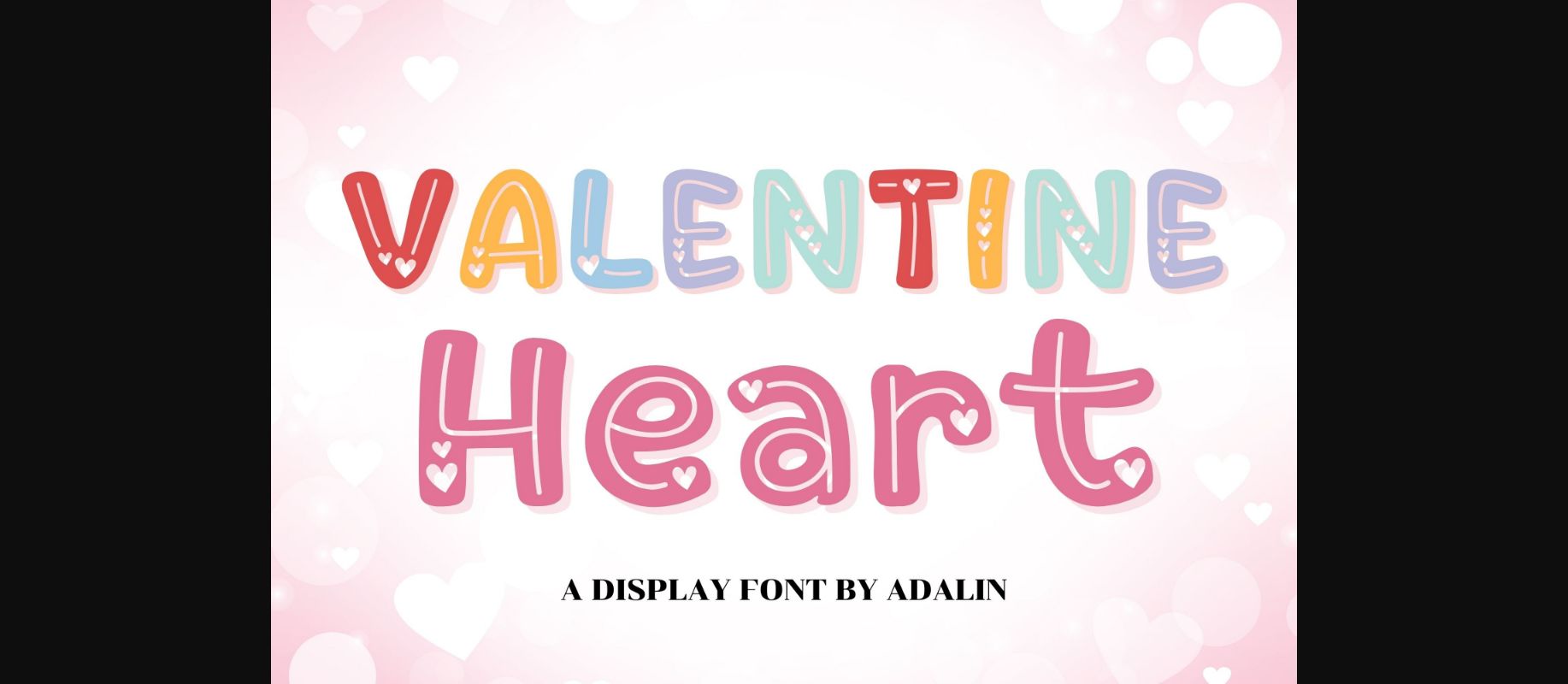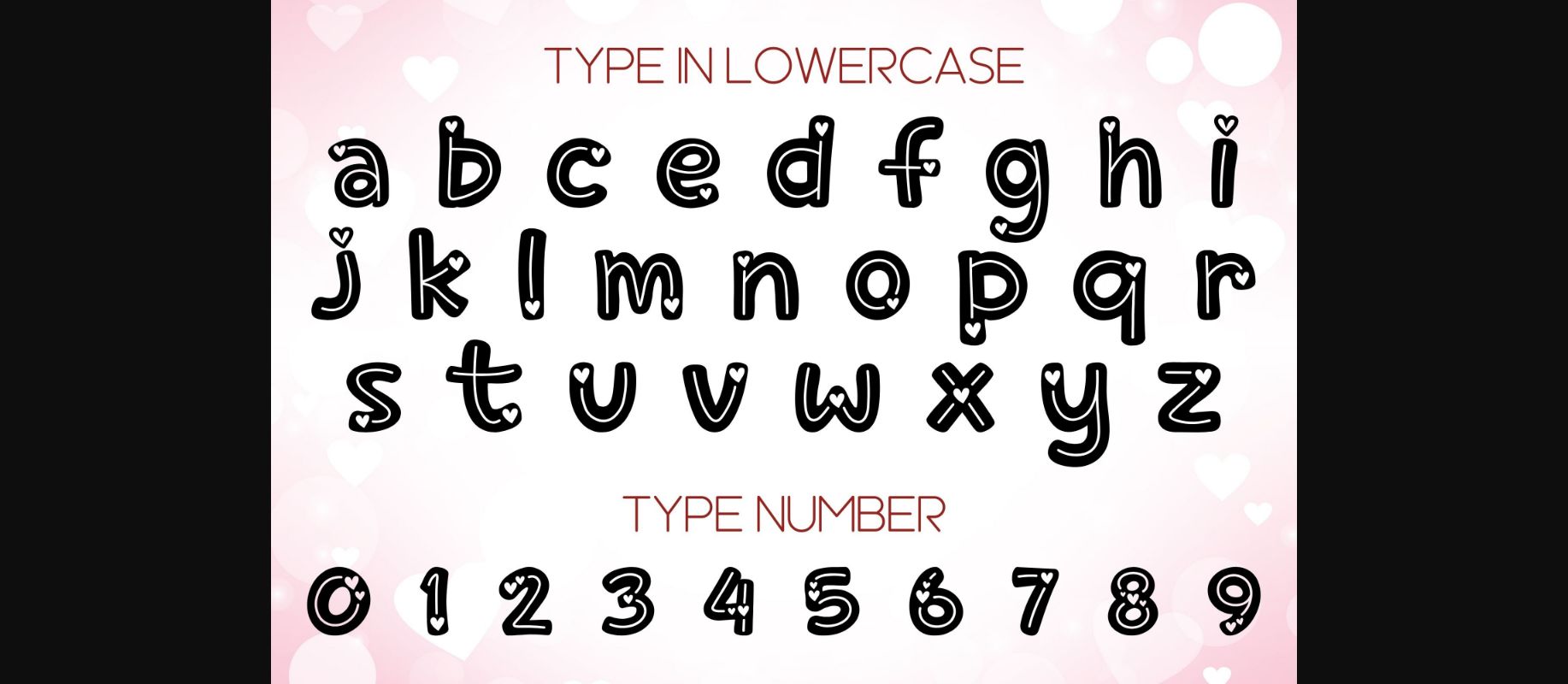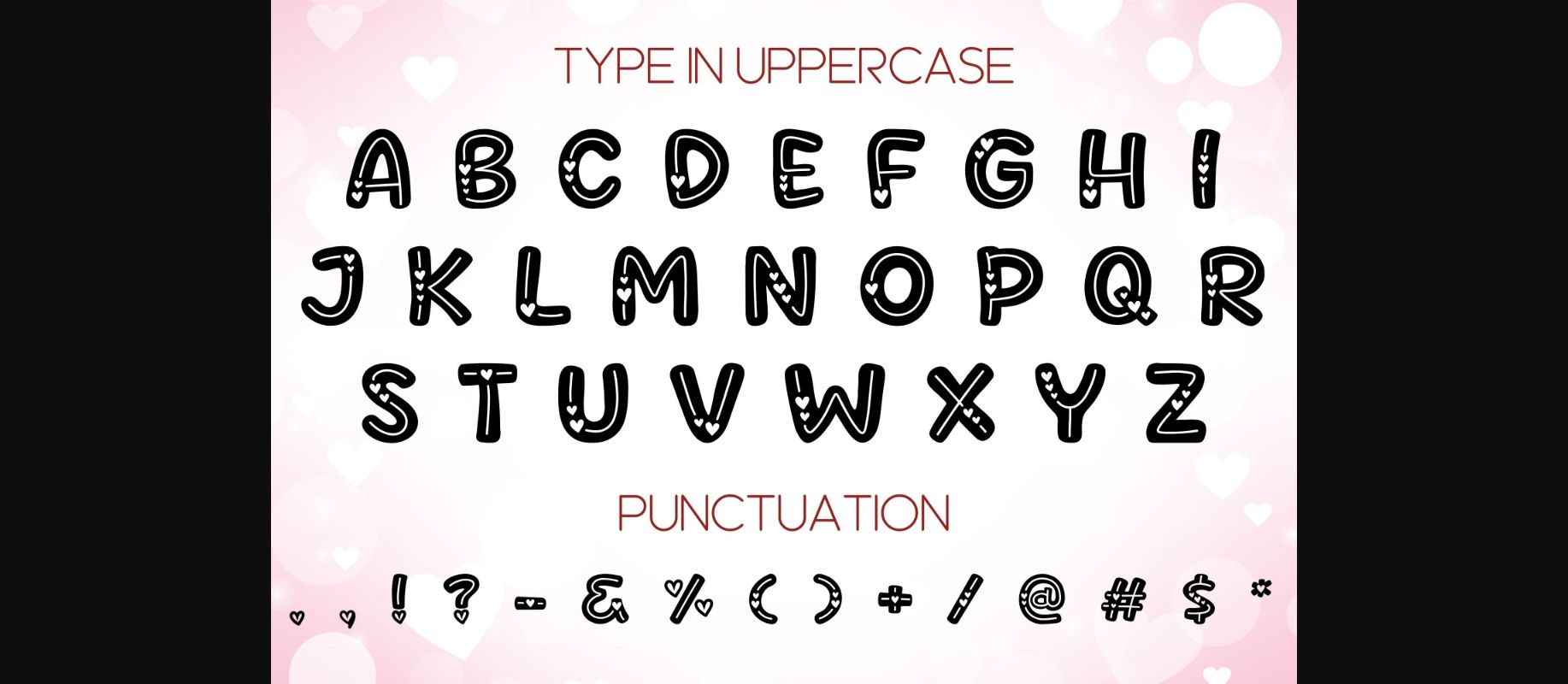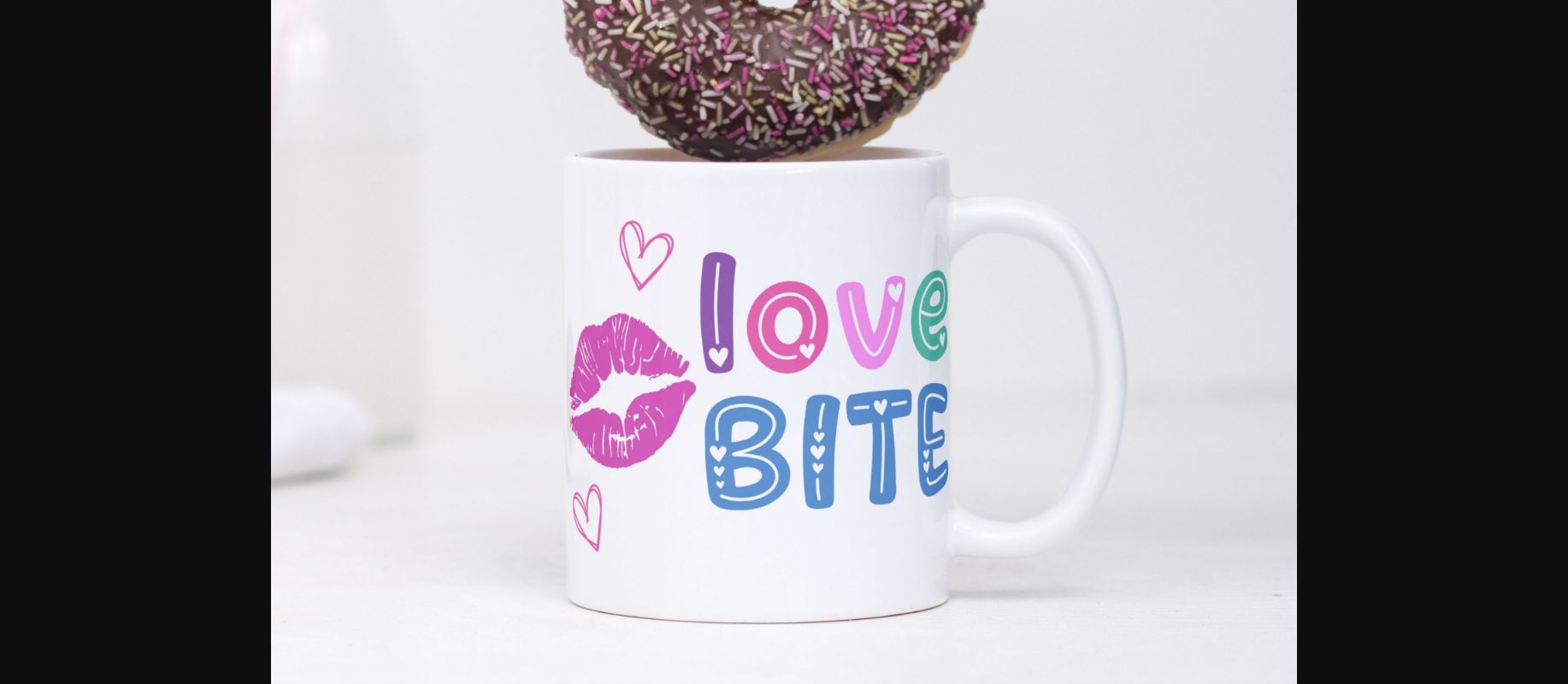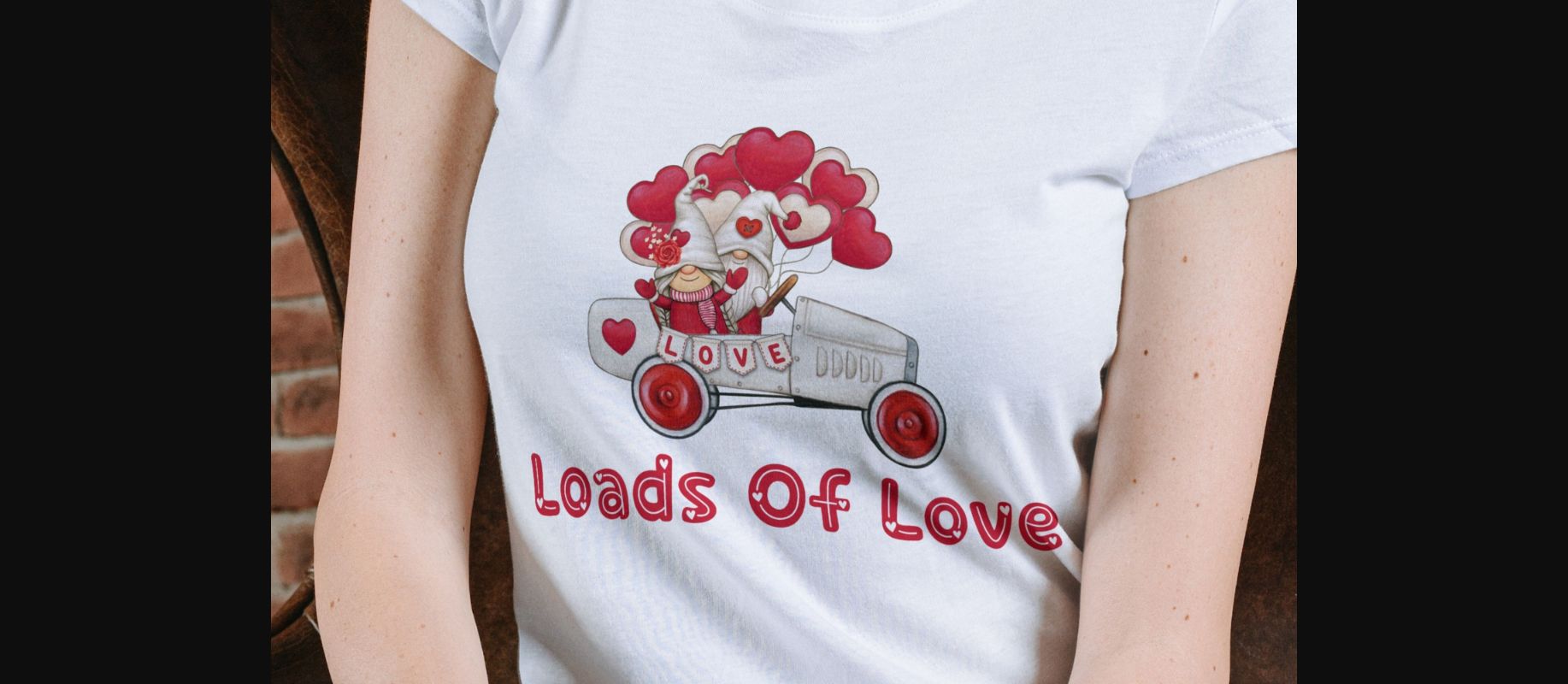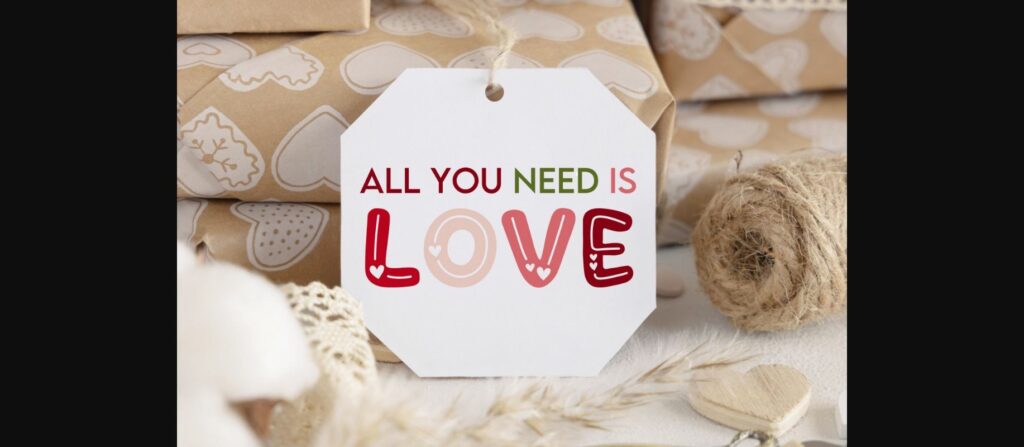
Valentine Heart Font
About Valentine Heart Font
Valentine Heart is a cute decorative Valentine Font ideal for crafting, and perfect for designs that need a playful, cheery accent. Valentine Heart is suitable for book covers, posters, packaging, merchandise, logotypes, and many more!